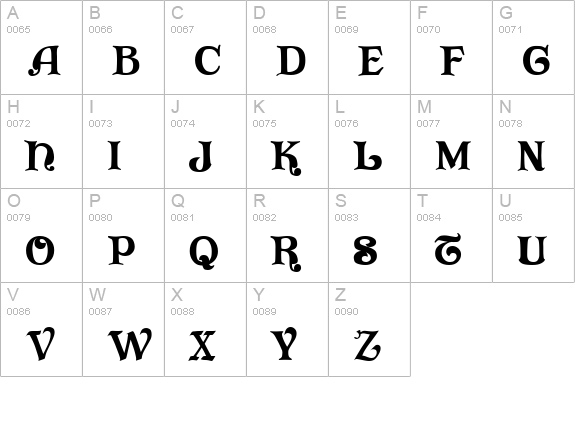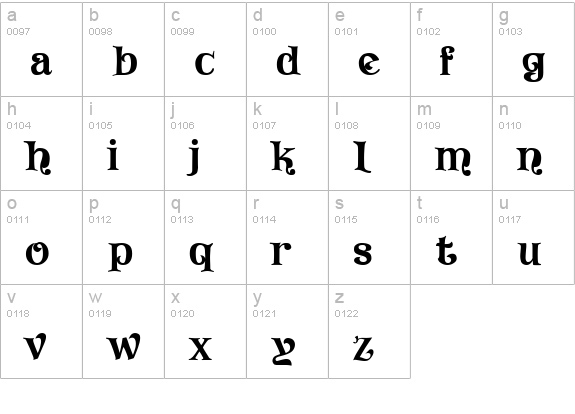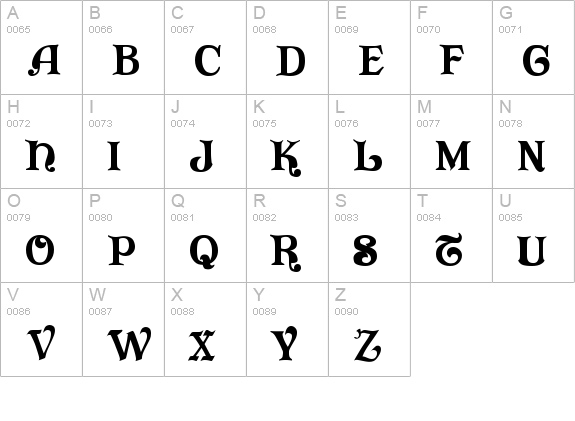
Vivala Font Details
Vivala font is a stunning typeface that effortlessly combines elegance and versatility. With its graceful curves and clean lines, this font is perfect for adding a touch of sophistication to any project. What sets Vivala font apart is that it is not only visually appealing but also free to download. Yes, you read that right! This exquisite font is freely available at FontsMarket.com, a leading platform for high-quality fonts. Whether you are designing a logo, creating stunning graphics, or crafting eye-catching posters, Vivala font will surely make your work stand out. Its timeless appeal and modern twist make it suitable for a wide range of design projects, from branding and advertising to invitations and social media posts. The versatility of Vivala font is truly impressive. It comes in various weights and styles, allowing you to experiment and find the perfect match for your creative vision. From bold and impactful to delicate and refined, this font has it all. Downloading and installing Vivala font is a breeze. Simply head over to FontsMarket.com, search for Vivala font, and click on the download button. Once downloaded, you can easily install it on your computer or device and start using it in your favorite design software. Don't miss out on this incredible opportunity to enhance your designs with the beauty of Vivala font. Download it for free today at FontsMarket.com and let your creativity soar to new heights.